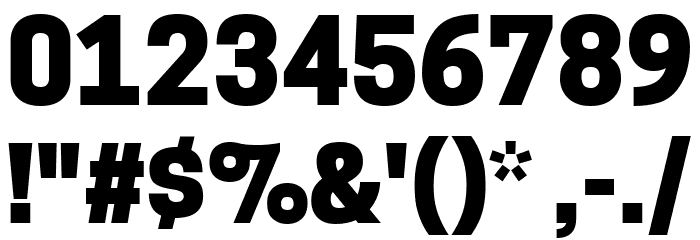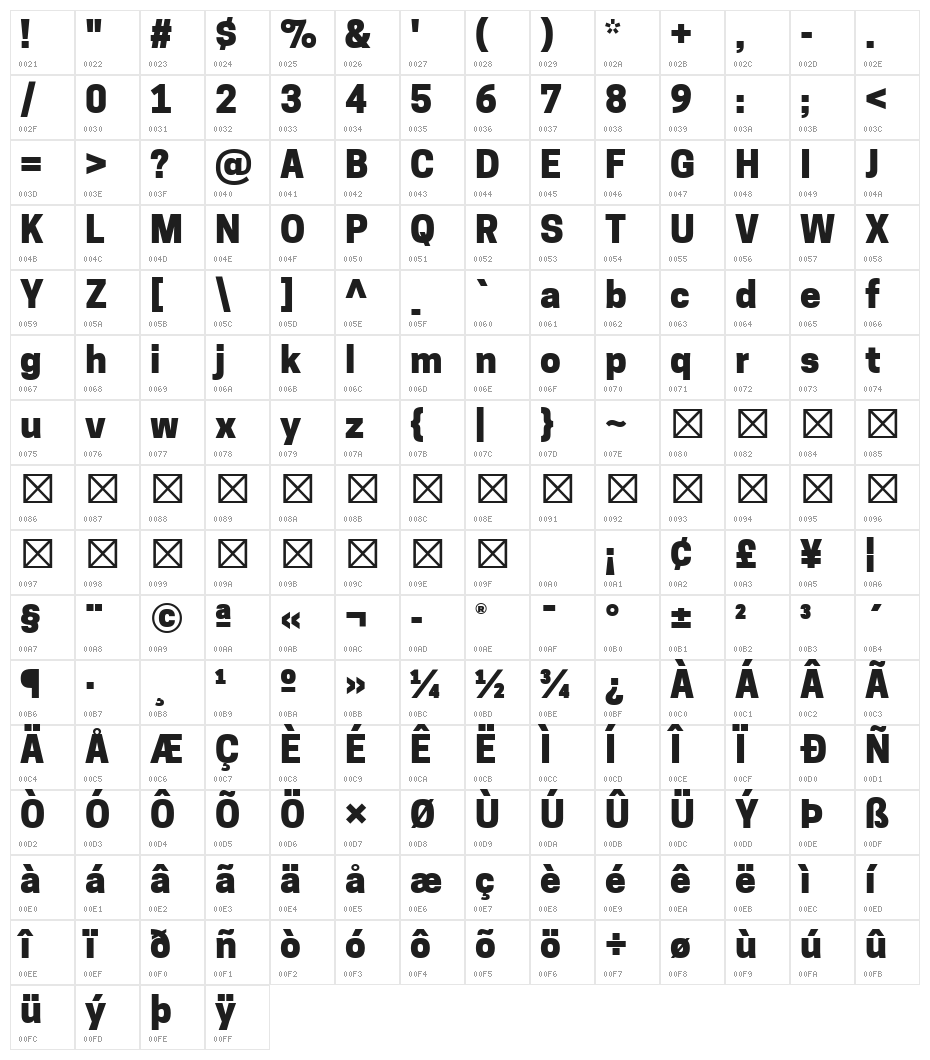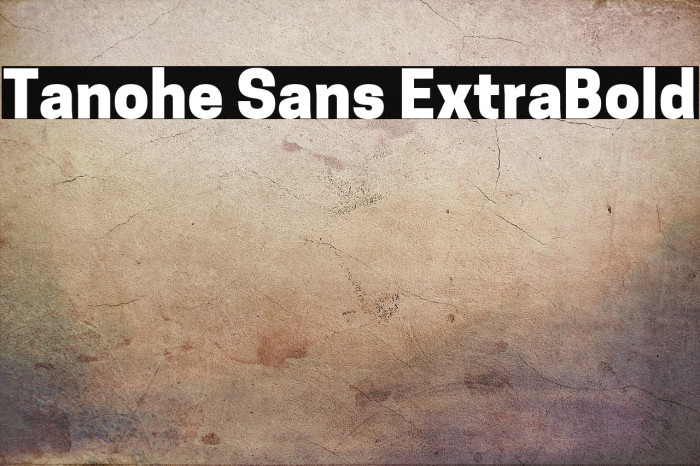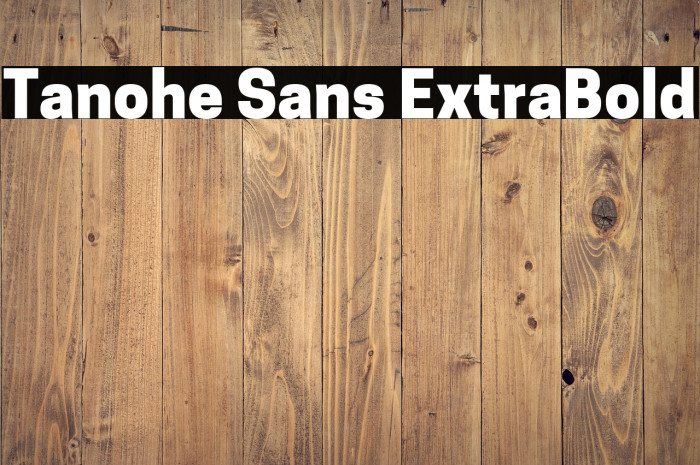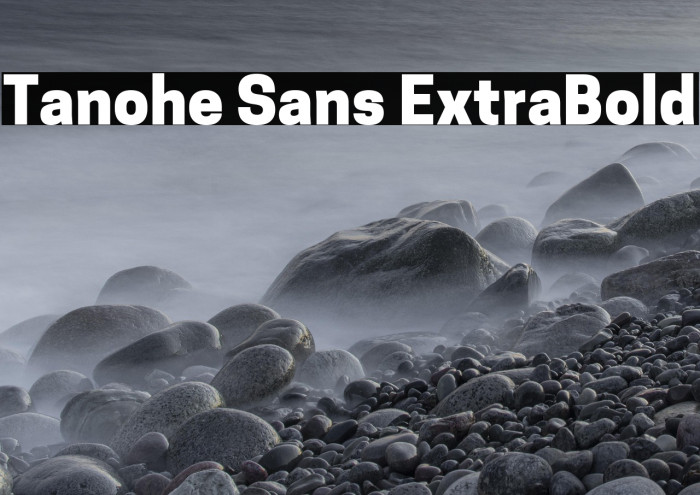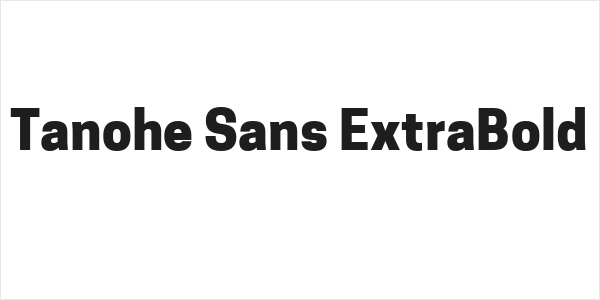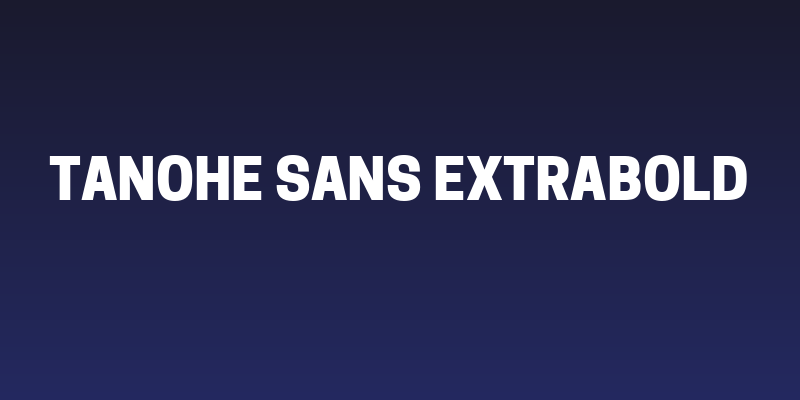
Tanohe Sans ExtraBold Font
Tanohe Sans ExtraBold Description
This typeface is characterized by its bold and impactful presence, featuring thick strokes and a strong geometric structure. The uppercase and lowercase letters are designed with a consistent weight, providing a uniform appearance across all characters. The numerals and special characters maintain the same boldness, ensuring readability and emphasis. Its sans-serif style gives it a modern and clean look, making it suitable for various design applications where clarity and strength are desired.
| Proposed Projects | Ideal for branding, advertising, headlines, posters, and any project requiring a strong visual impact. |